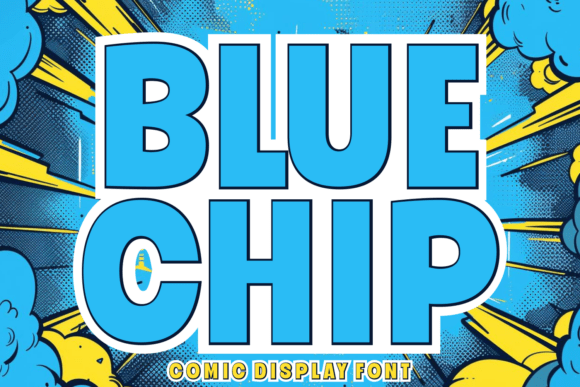
The Perfect Match for Your Next Creative Project
Have you ever found yourself stuck in a design rut, searching for that one font that perfectly captures the essence of your next project? Maybe you’re planning a fun holiday poster, or perhaps you’re crafting a cute logo for a new business. Whatever the case, I’m here to introduce you to the perfect solution: the Blue Chip font.
This charming font is designed to bring a smile to your face and a spring to your step. With its bouncy feel and fun vibe, it’s the perfect companion for any project that requires a dash of whimsy and personality. Whether you’re a seasoned designer or just starting out, the Blue Chip font is a valuable addition to your toolkit. Its versatility and kid-friendly vibe make it ideal for educational materials, children’s products, and even modern farmhouse themes.
Blue Chip Font Key Features
- Font Family: Blue Chip is a sans-serif font family designed for clear and readable text.
- Unique Characteristics: Blue Chip features a unique blend of modern and classic design elements, making it a versatile choice for both modern and traditional designs.
Review: Blue Chip Font
First off, I’d like to say that Blue Chip Font is a solid choice for anyone looking for a classic, elegant font. ✨ The font is well-balanced, with clean lines and a professional feel that makes it perfect for corporate branding or high-end marketing materials.
One of the things I love about Blue Chip Font is its versatility. ✨ It works well in both print and digital formats, and it’s suitable for a wide range of industries, from finance to healthcare. The font also comes in a range of weights and styles, making it easy to find the perfect fit for your project.
- ⚠️ Limited expressiveness: While Blue Chip Font is great for conveying professionalism, it may not be the best choice for projects that require a more playful or creative tone.
- ⚠️ Not suitable for small text: Due to its clean lines and lack of ornamentation, Blue Chip Font can be difficult to read in small text sizes.
Overall, I’d give Blue Chip Font 4 out of 5 stars. While it may not be the most exciting font out there, it’s a reliable choice that’s sure to impress. With a little creativity and experimentation, you can use Blue Chip Font to create some truly stunning designs.
Some tips for getting the most out of Blue Chip Font include using it sparingly to create emphasis and contrast, and combining it with bold lines and shapes to create a striking visual effect. Common use cases include creating headings and titles, designing presentations and documents, and adding a touch of elegance to digital designs.